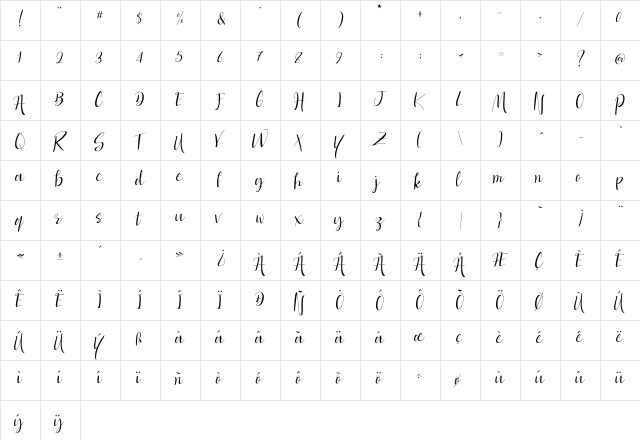
Dolcetto Regular
| Foundry | Riverside Digital Type Foundry |
| Designer | Riverside Digital Type Foundry |
Design Context for Dolcetto Typeface
Dolcetto is a composed and adaptable typeface that performs quietly and consistently across a wide range of design contexts.